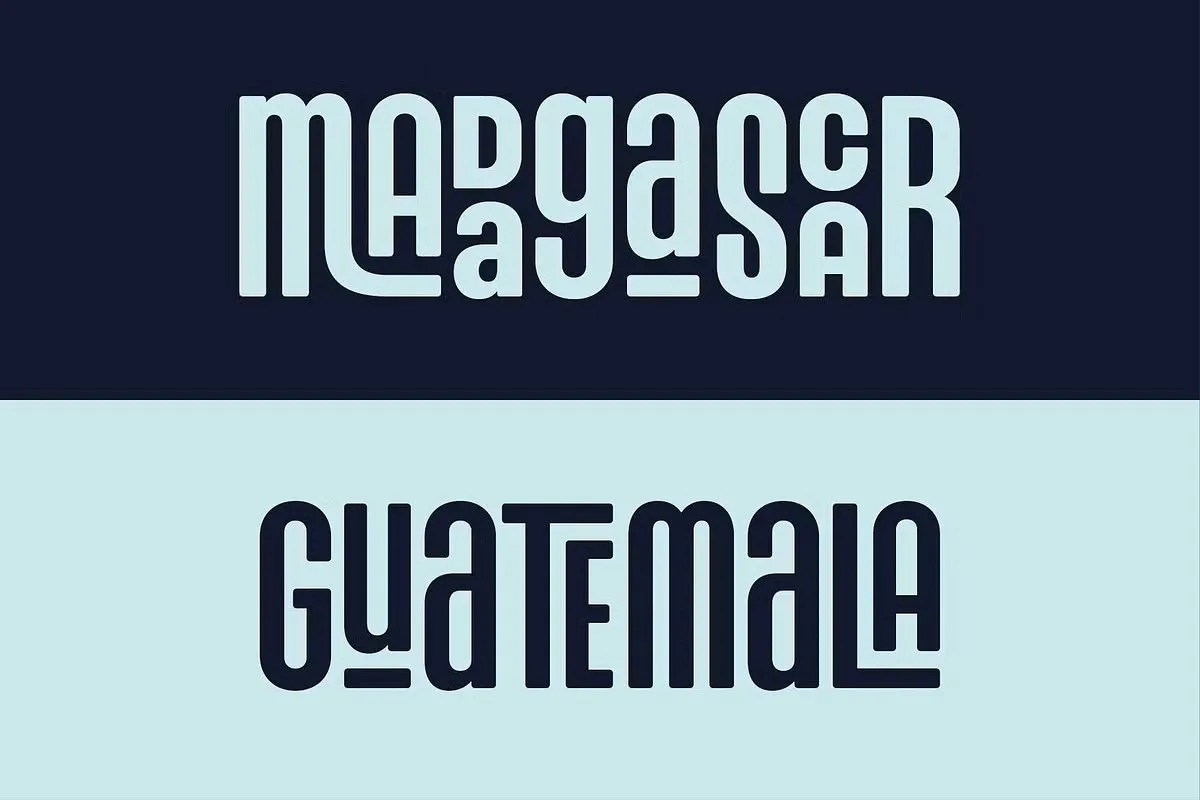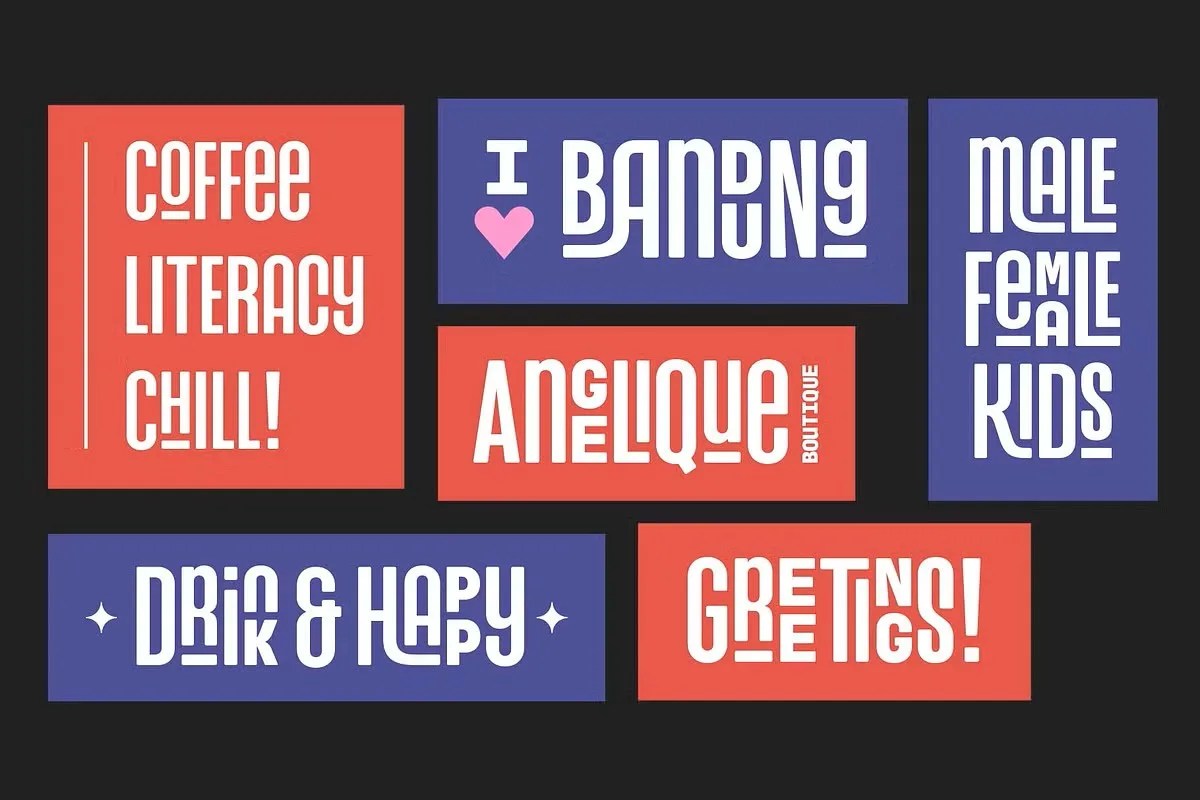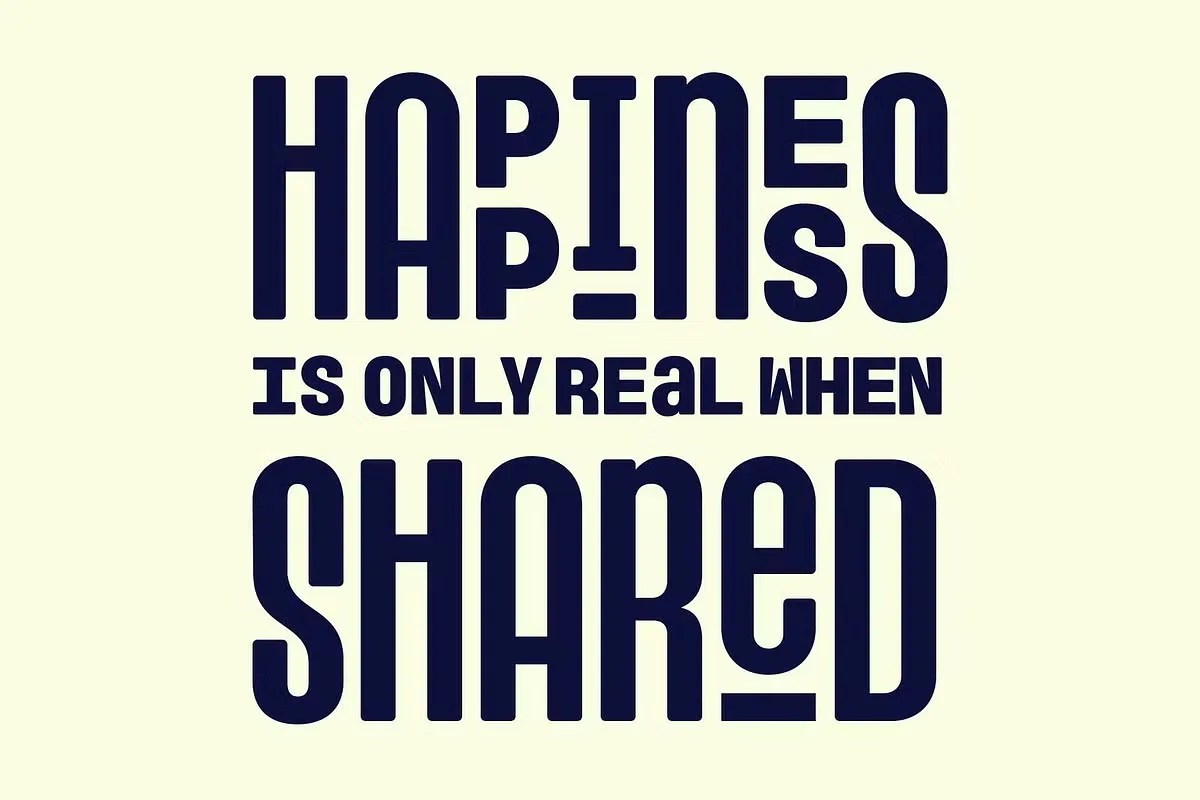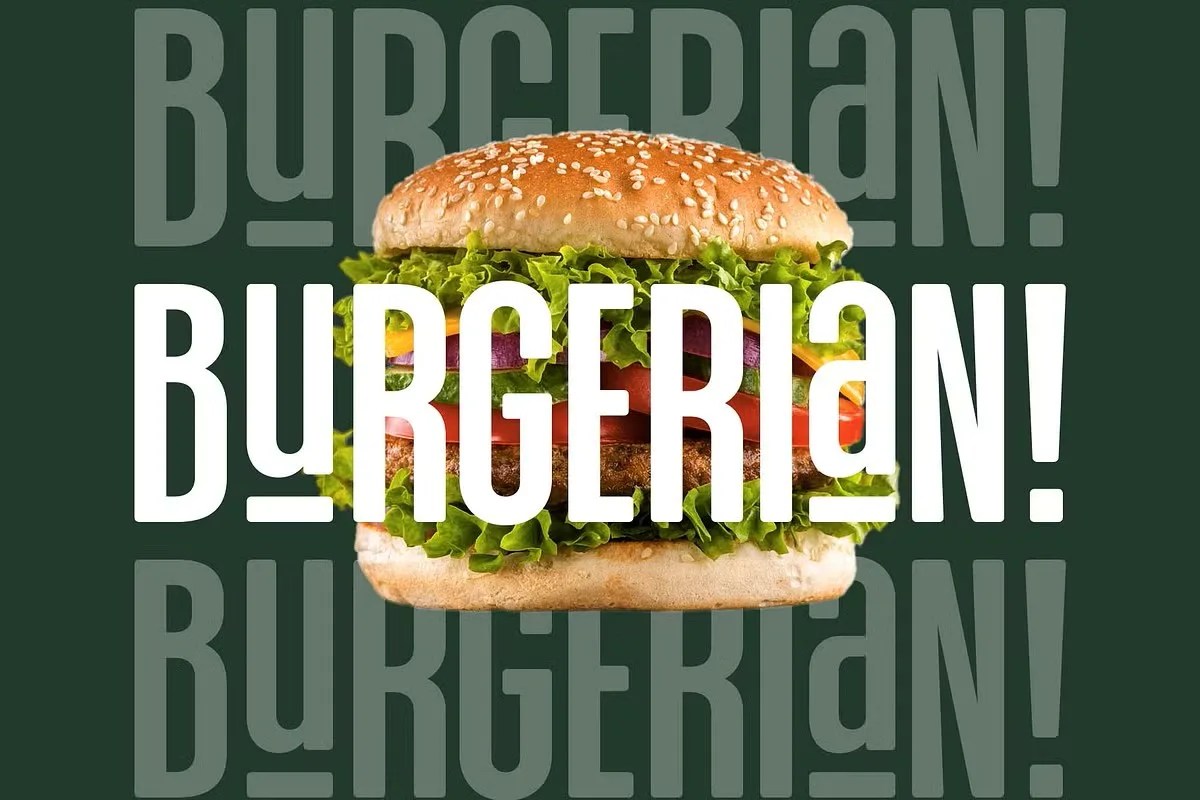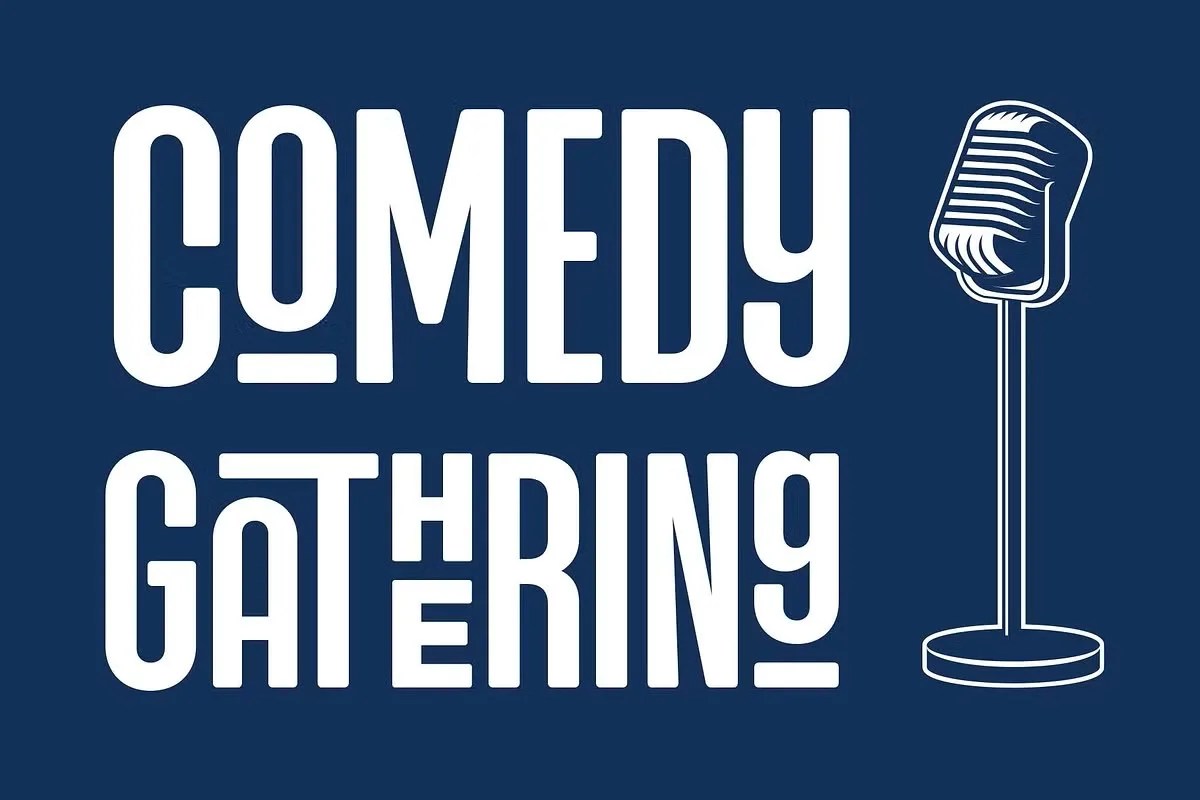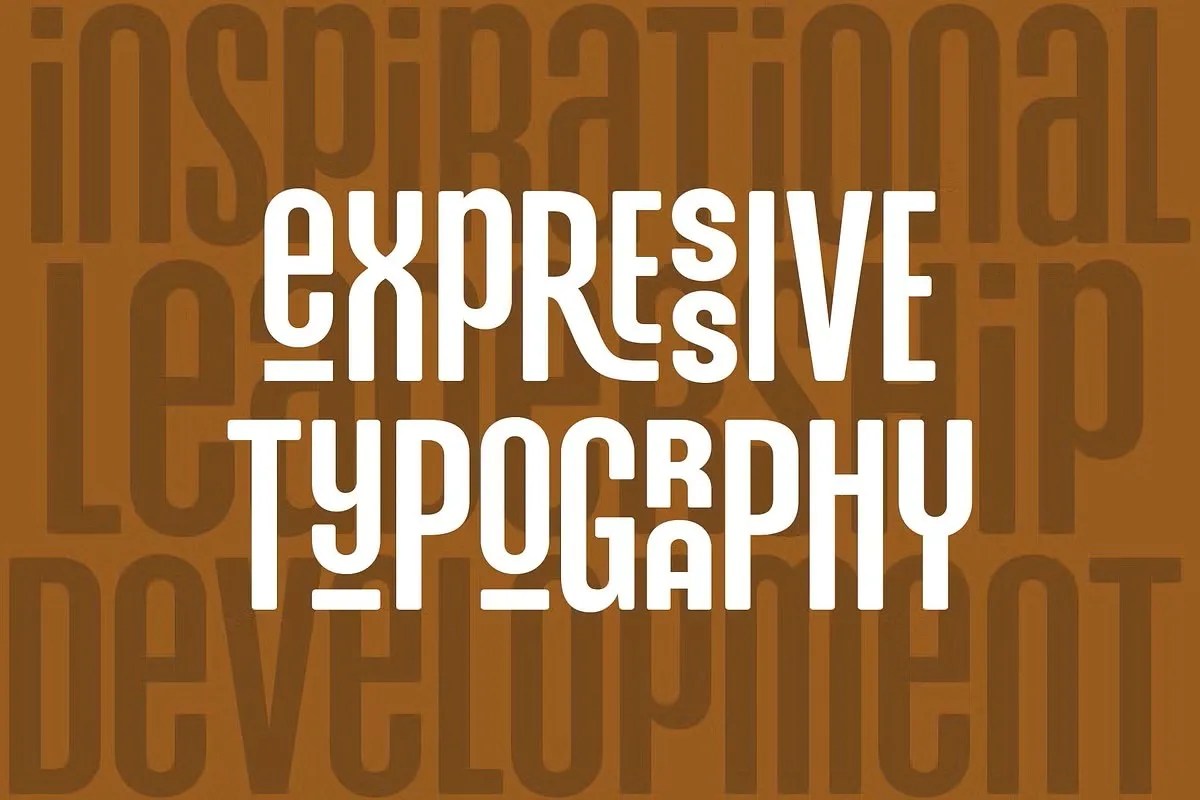
Neuronicle by Arterfak. This is a clean and precise technical sans serif font. The author designed it for projects that communicate complex information with ease. Neuronicle’s design prioritizes legibility and a modern, intelligent aesthetic. It helps you present data and ideas with style. The font speaks a language of logic and innovation, making it a perfect choice for forward-thinking projects.
This font is a perfect tool for information-centric design. Specifically, UI/UX designers will appreciate its excellent performance on digital screens. It creates clean, accessible, and user-friendly interfaces. Furthermore, this technical sans serif font excels in data visualization and infographics. It presents complex data without adding visual clutter, allowing the information to take center stage. Use it for branding a tech company or for creating the text in a futuristic heads-up display in your creative work.
• Clean and precise technical sans serif style
• Optimized for on-screen legibility
• Ideal for UI/UX, data visualization, and coding
• Adds a modern, intelligent feel
Neuronicle